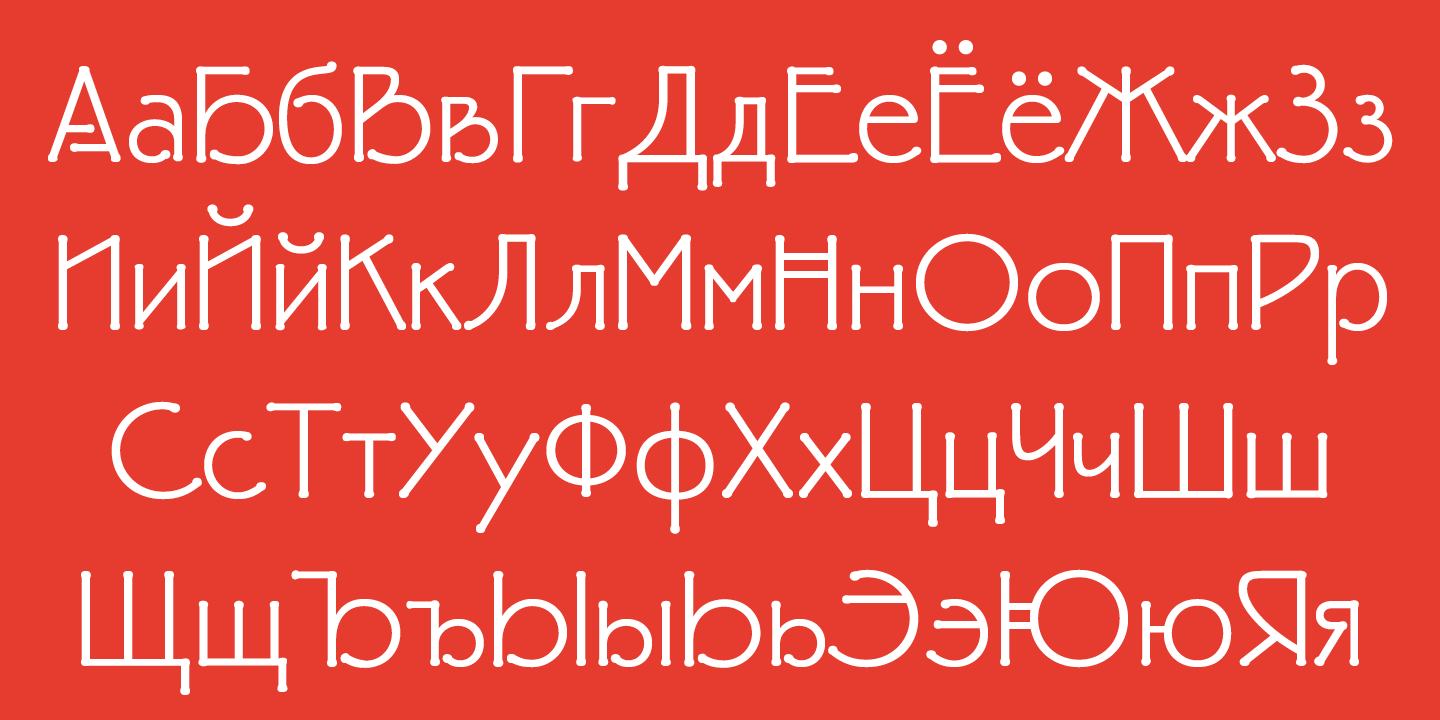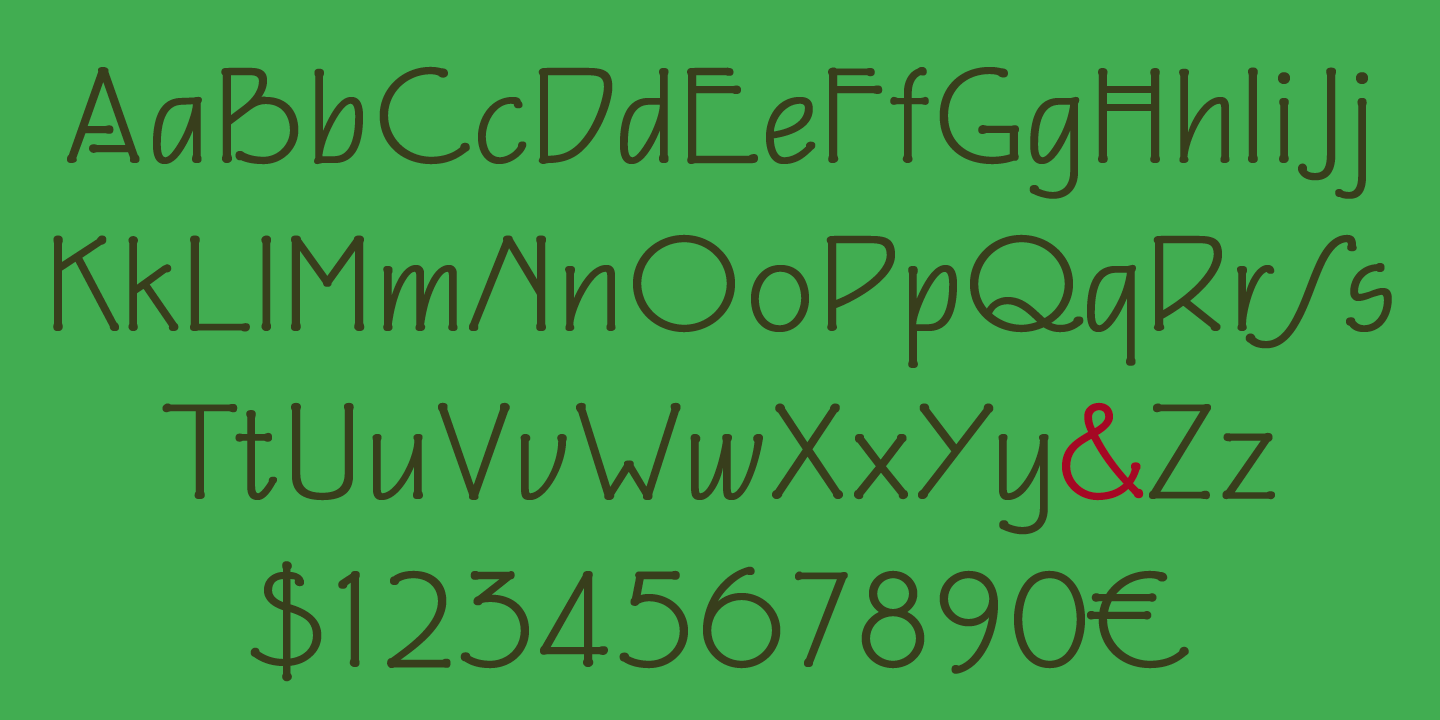
The American designer David Siegel created the font in 1990. Tekton is based on the hand lettering of West Coast architect Frank Ching, who wrote out the text for his books. Tekton is ideal for architectural drawing/design software, to match the feel of the type with the designer’s plans, or to give the page an architectural or informal handwritten flavor. Tekton multiple master, released in 1993, has increased the usefulness of the design by adding weight and width axes and making the typeface more usable for signage and display work, as well as informal correspondence.